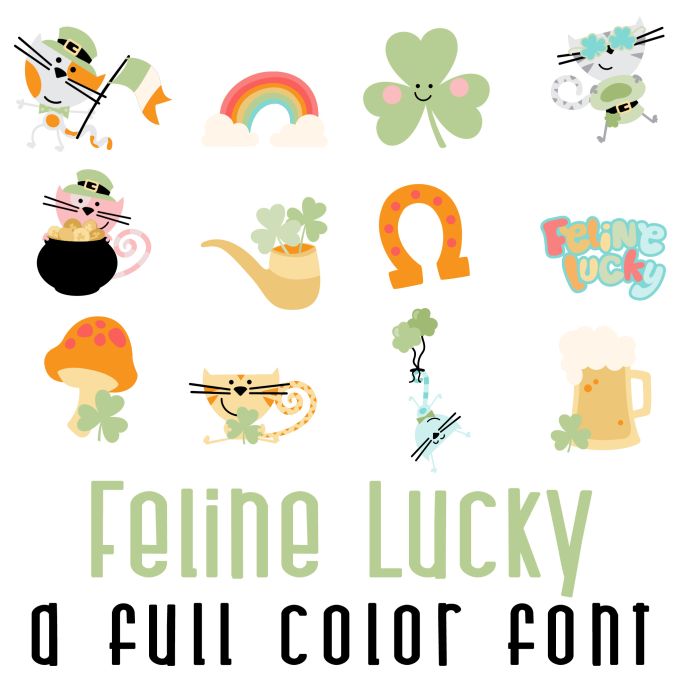
This fun full color font features 26 lucky cats and retro style designs. Perfect for St. Patricks Day, cards, crafts, gifts, planner stickers, classrooms, parties, scrap book pages and more!